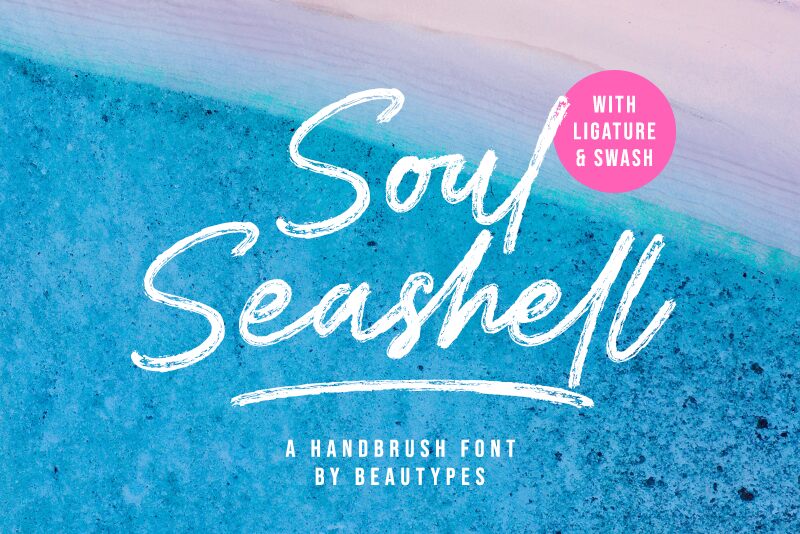
SoulSeashell
Soul Seashell, masterfully crafted by Beautypes, emerges as a captivating brush font that exudes a unique charm. Its handwritten brush style combines fluidity with an artisanal touch, resulting in letters that dance across the page with elegance and spontaneity. The irregularities in the strokes add a personal and authentic feel, reminiscent of hand-painted signage and calligraphy.
Perfect for projects that seek to evoke creativity and warmth, Soul Seashell is ideal for branding, invitations, packaging design, and social media graphics. Its versatility ensures it stands out without overwhelming other design elements. Whether crafting eye-catching headlines or personalized stationery, this font adds an artistic flair that's both modern and timeless. Dive into the imaginative world of Soul Seashell and let your designs speak with soulful expression.